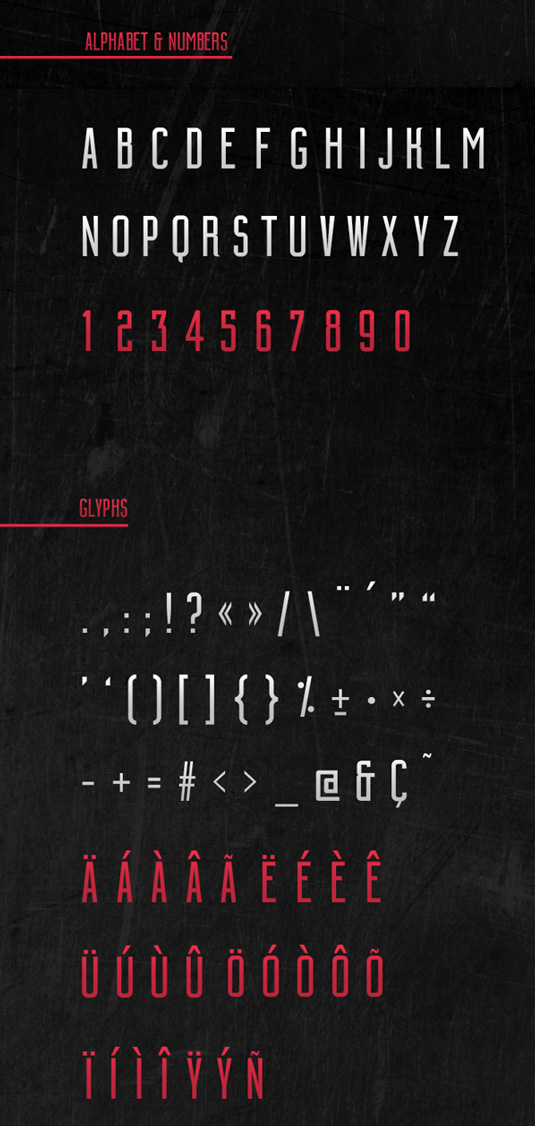
Font of the day: Building
Every day we showcase the best fonts on the web. Today it's Building by Leonardo Gubbioni, which is totally free to download.
Building by Leonardo Gubbioni
Today's font of choice Building was created by Italian design student Leonardo Gubbioni. He comments on Behance: "With a strong visual impact, Building's primary purpose is to capture the attention, in a world where you are constantly assualted by sensory stimuli."